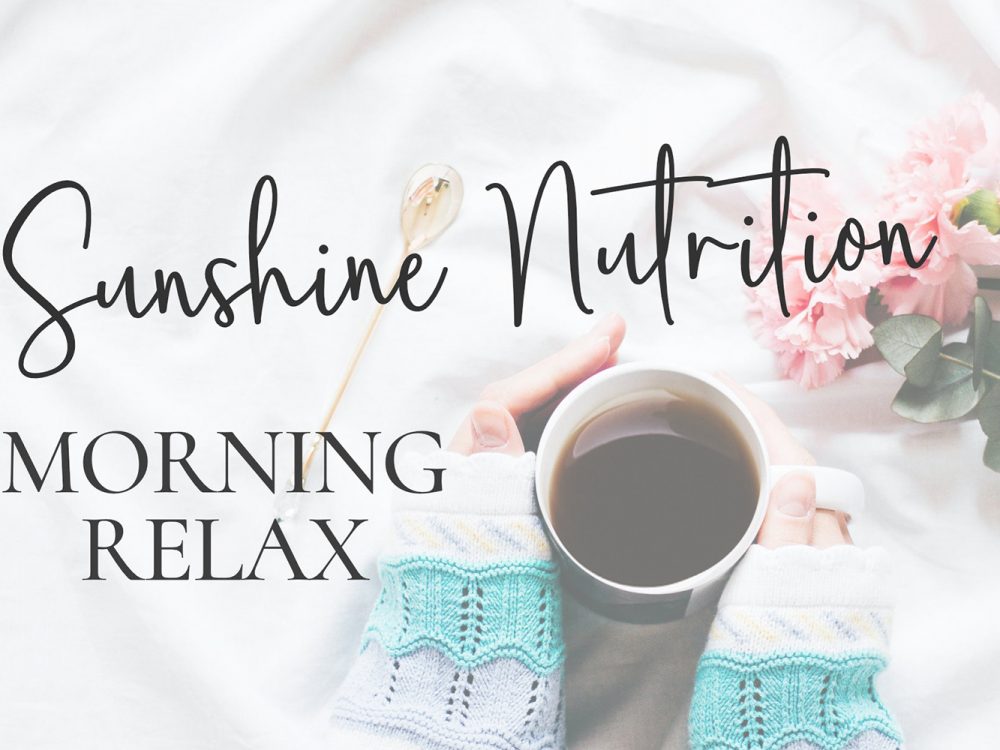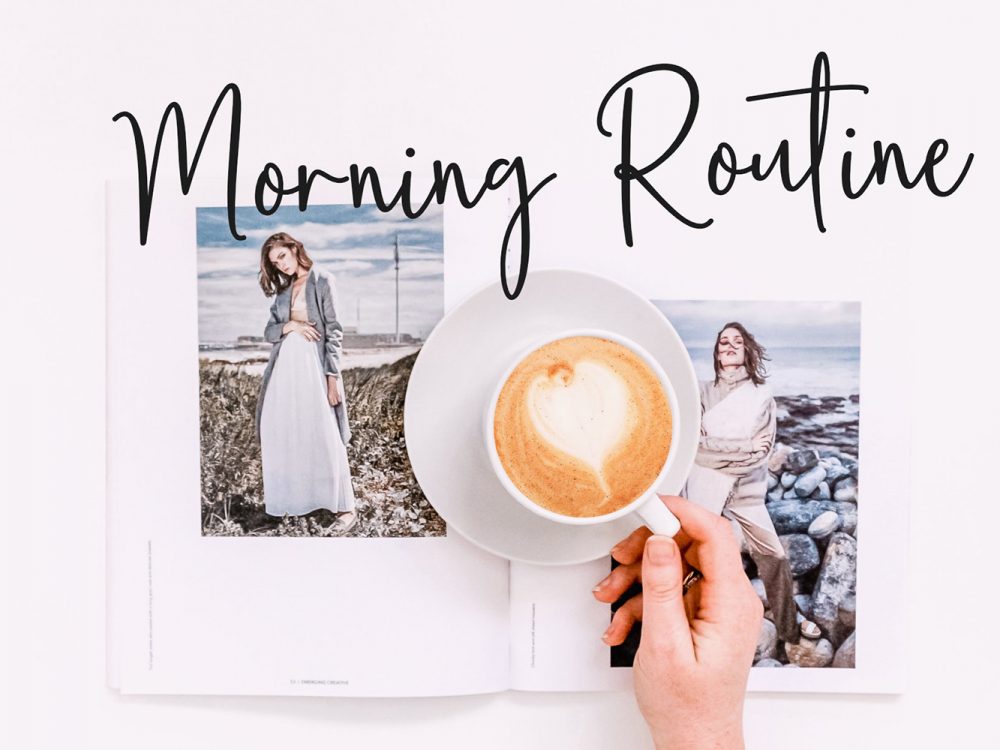
Bettany Anastasya Free Font
Bettany Anastasya Free Font is a beautiful handwritten font that simulates detailed brush writing and is very suitable for creating various design projects that require a scripted font. These can be posters, invitations, cards, branding, flyer prints, and more. If you wish to access more features and use them for commercial work please buy the full version.